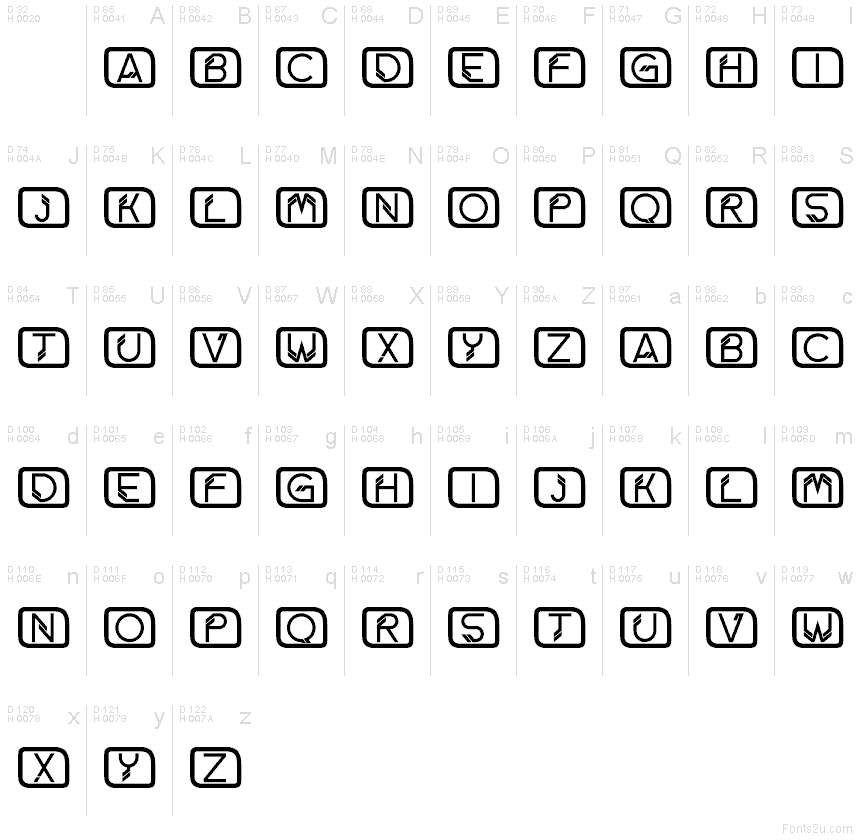
Expert Extravagant Regular
Expert Extravagant font from Vladimir Nikolic is a free decorative font with an ultra-modern aesthetic. This display font has a geometric structure based on rounded square outlines and a futuristic vibe with clean lines that are beautifully aligned. Its technical feel is obvious and dominating.
Use Expert Extravagant in everything science-fiction-related: movies, series, branding, books, online articles, stationery designs, advertising campaigns, novelty t-shirts, gaming (both video games as well as board and card games), product design. dramatic tattoo.